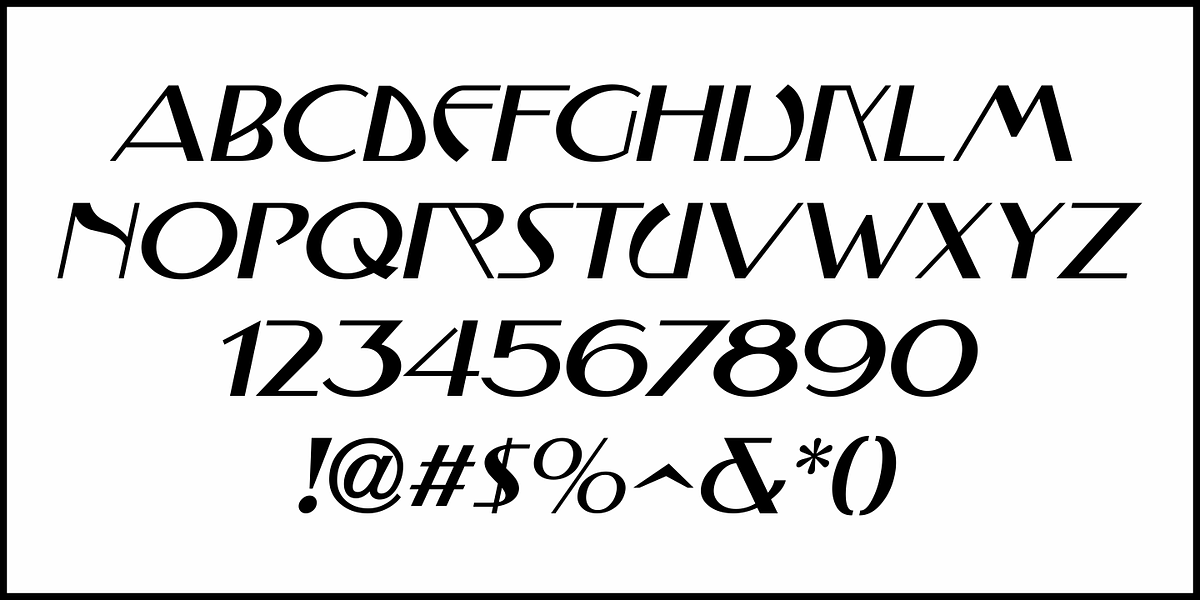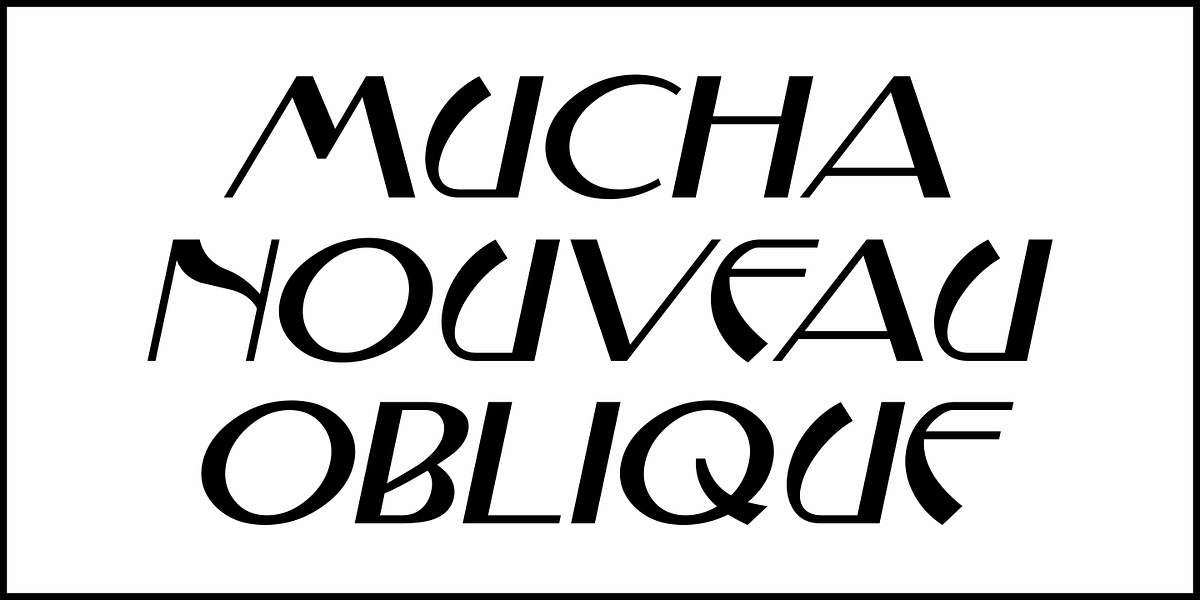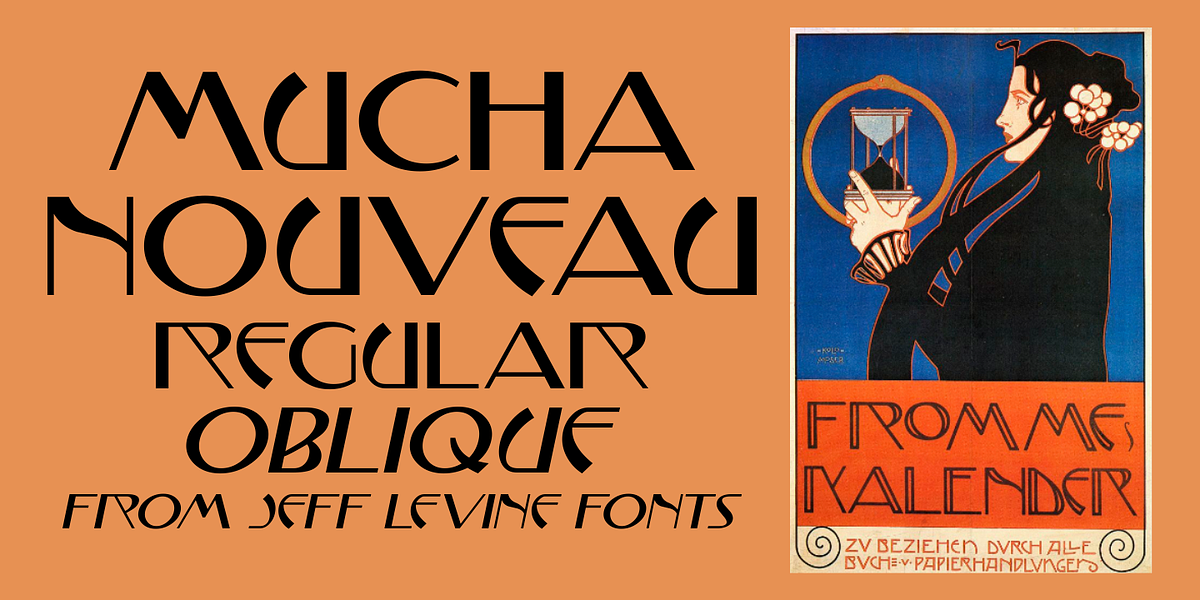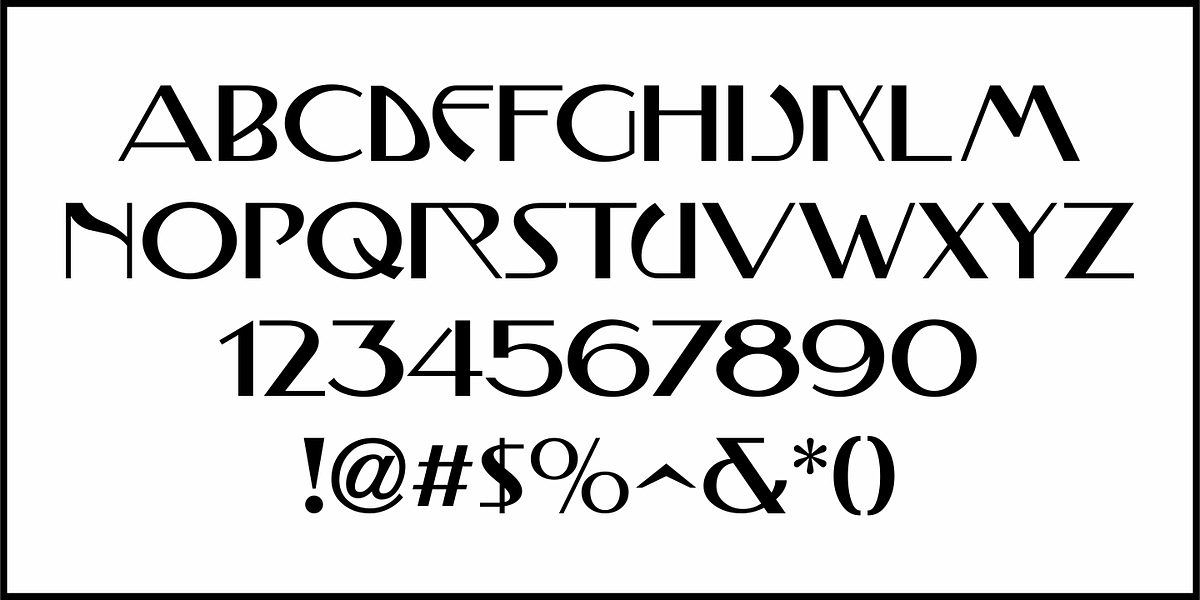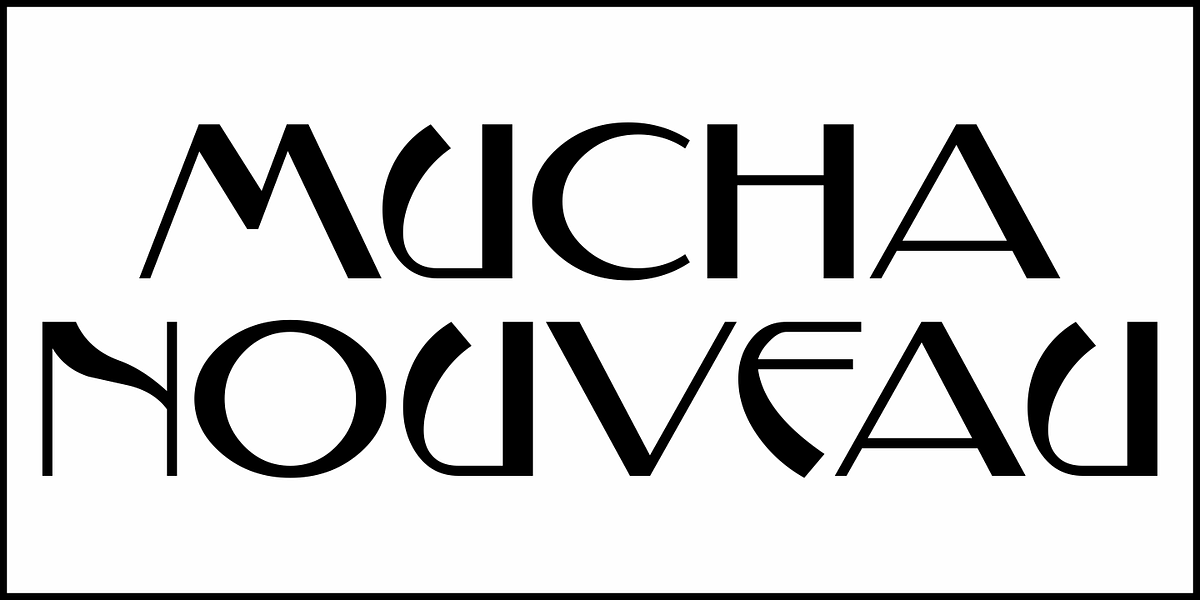
Mucha Nouveau JNL
Fromme's Calendar for 1899 featured the artwork and unique lettering of Alphonse Mucha, considered by many to be the father of the Art Nouveau movement.
This unique sans serif type design is now available as Mucha Nouveau JNL in both regular and oblique versions.